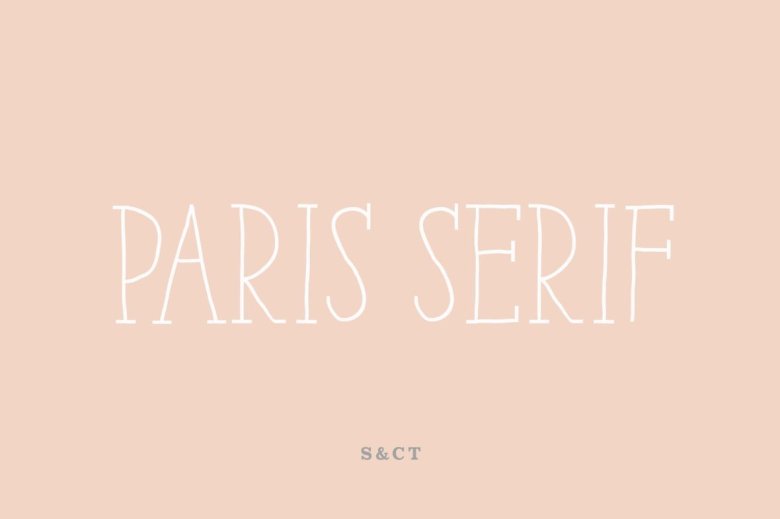
Paris Serif Font Family
Paris Serif is a serif handwritten font designed in Paris. It’s an all-caps thin font, with Art Decorations and extended glyphs for many languages.